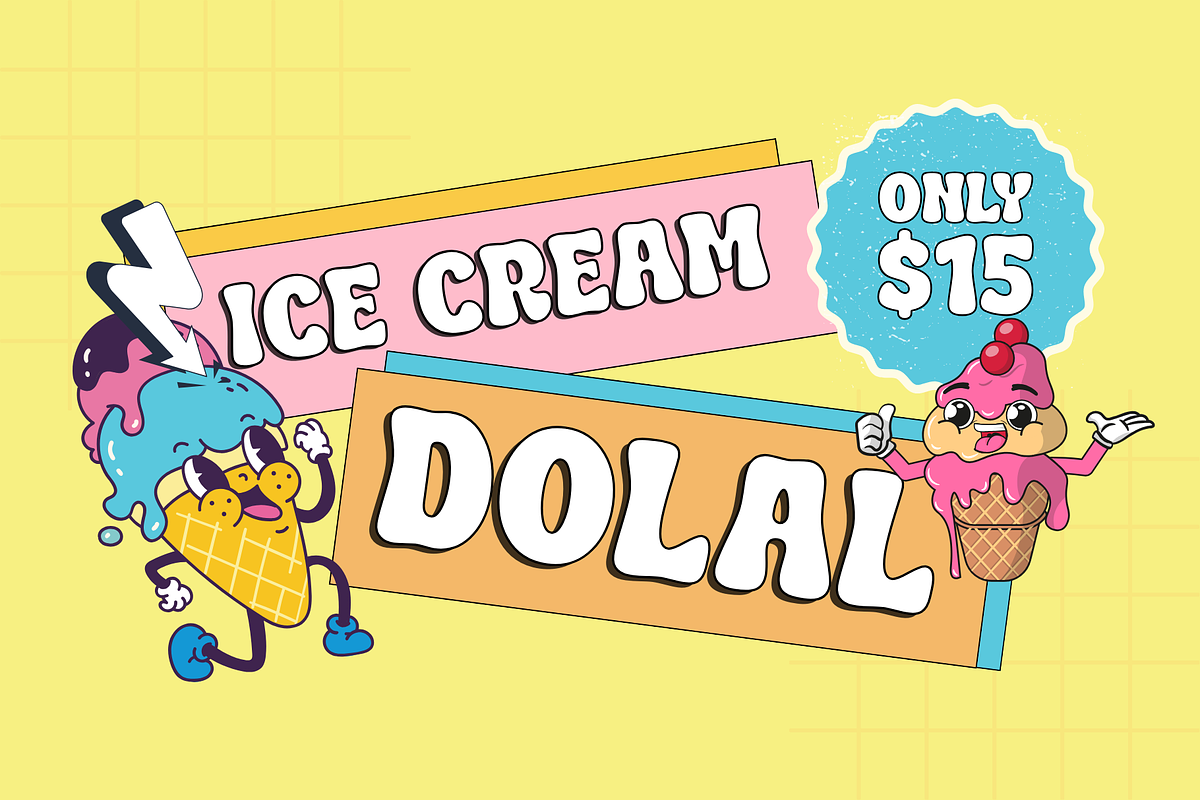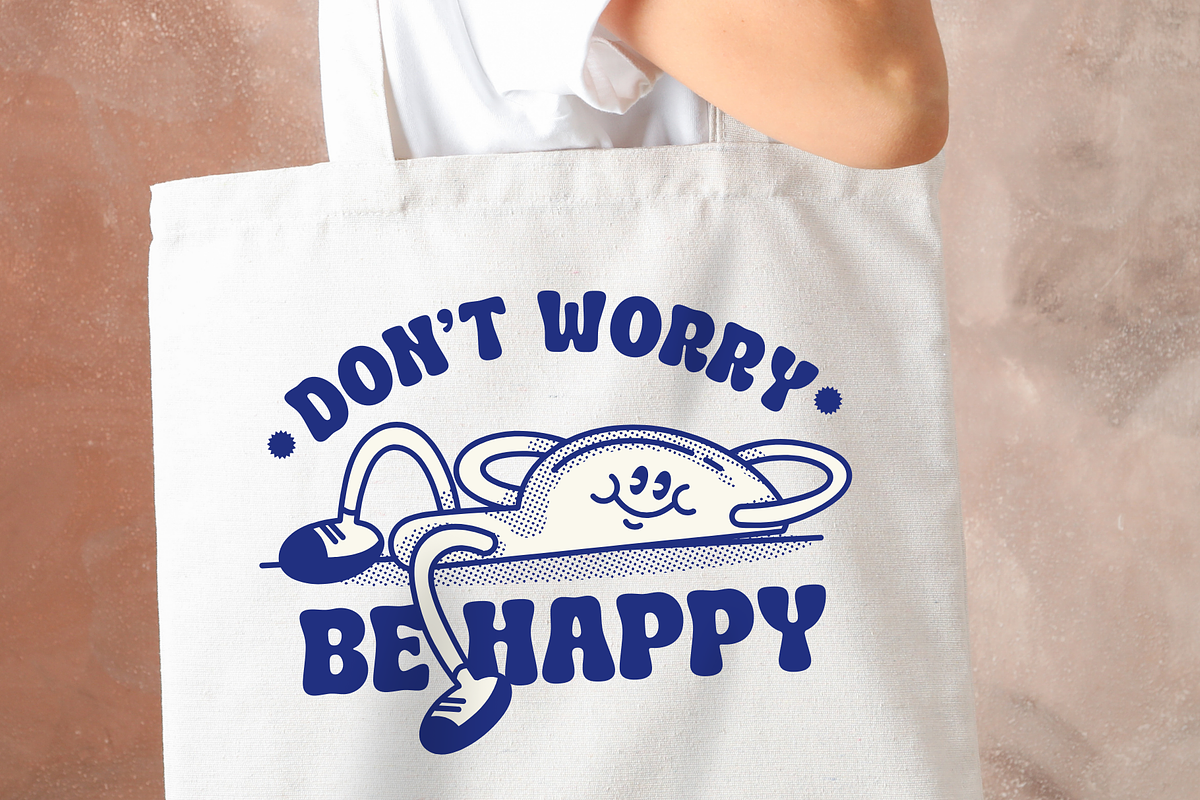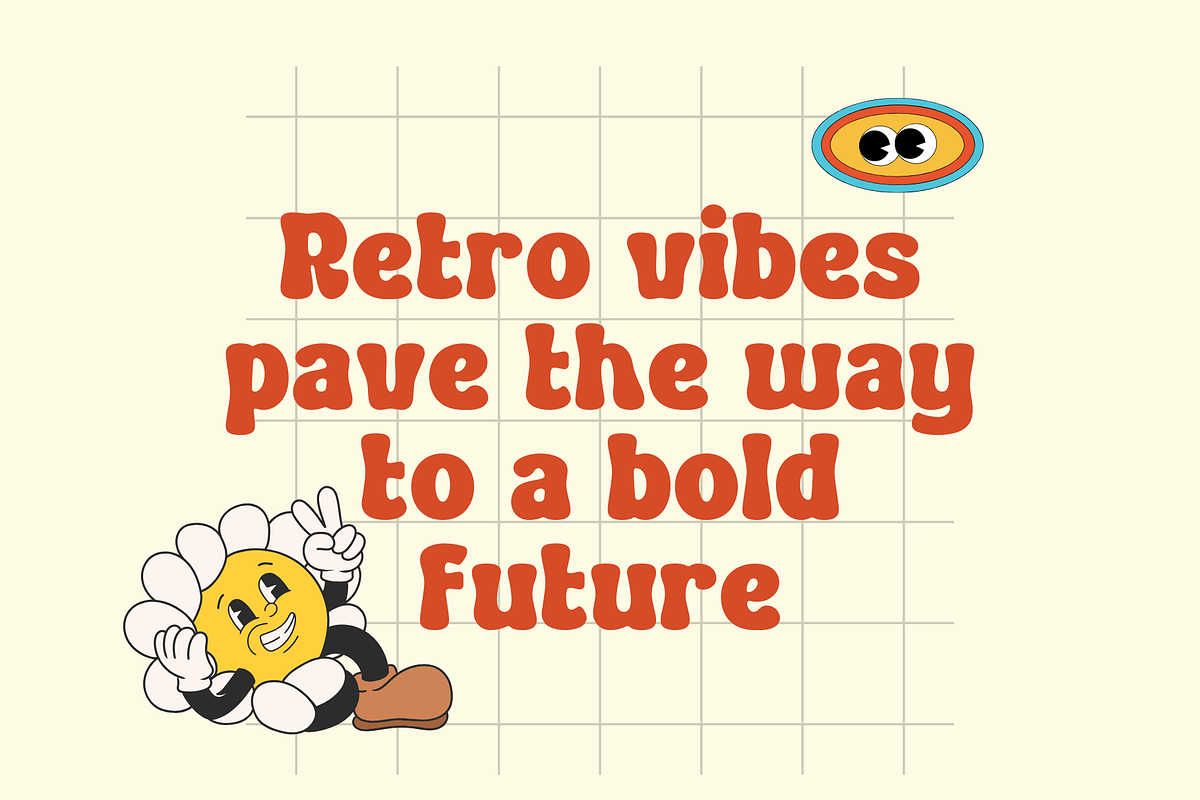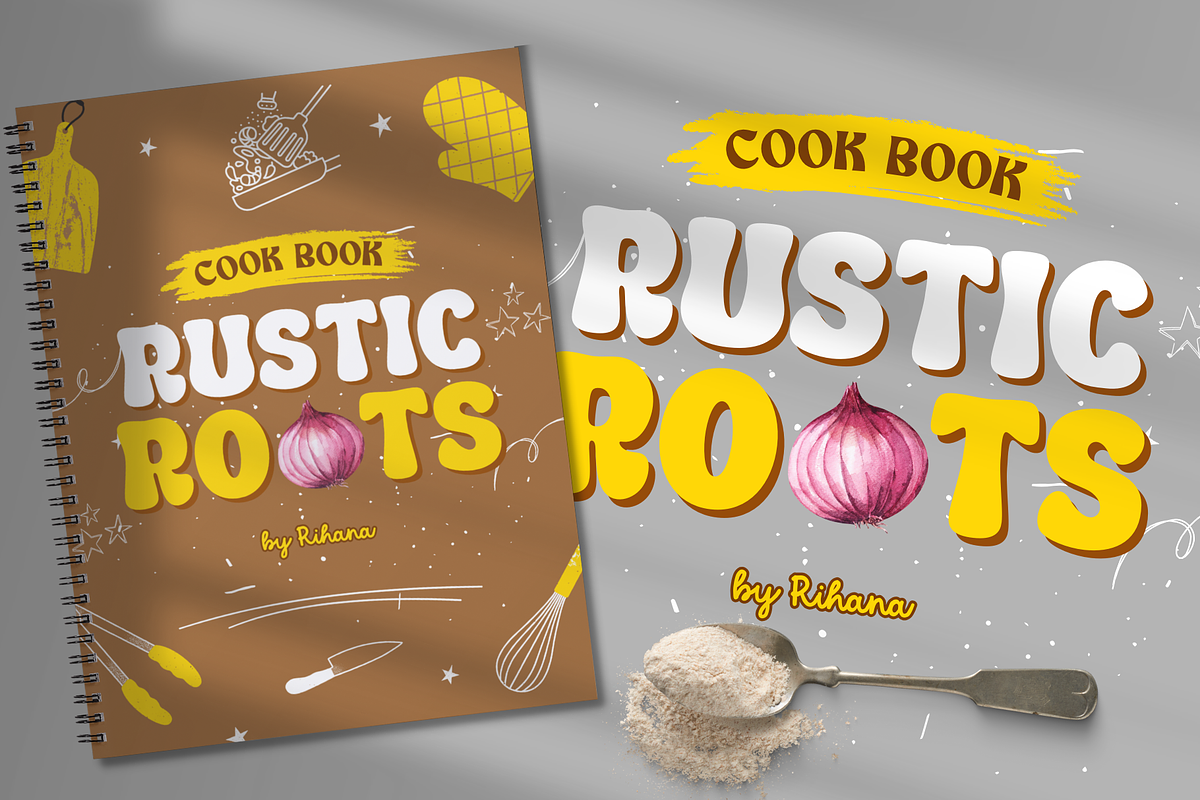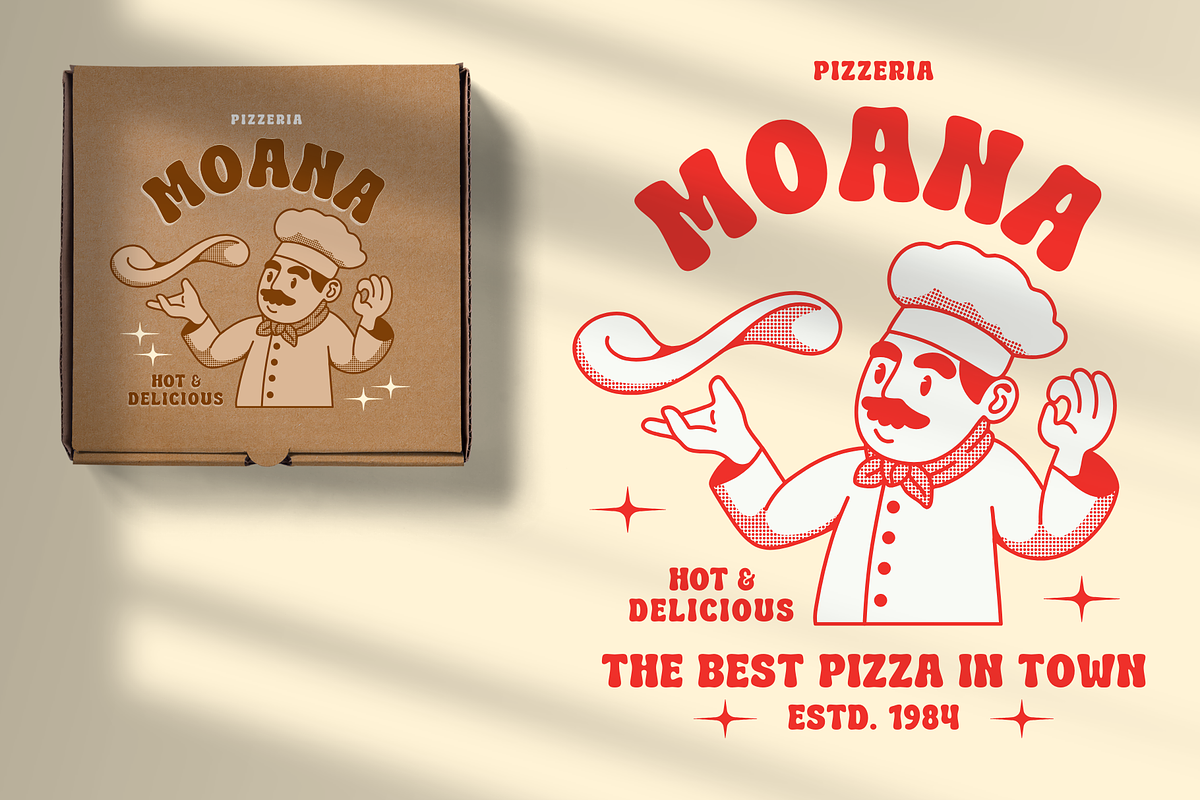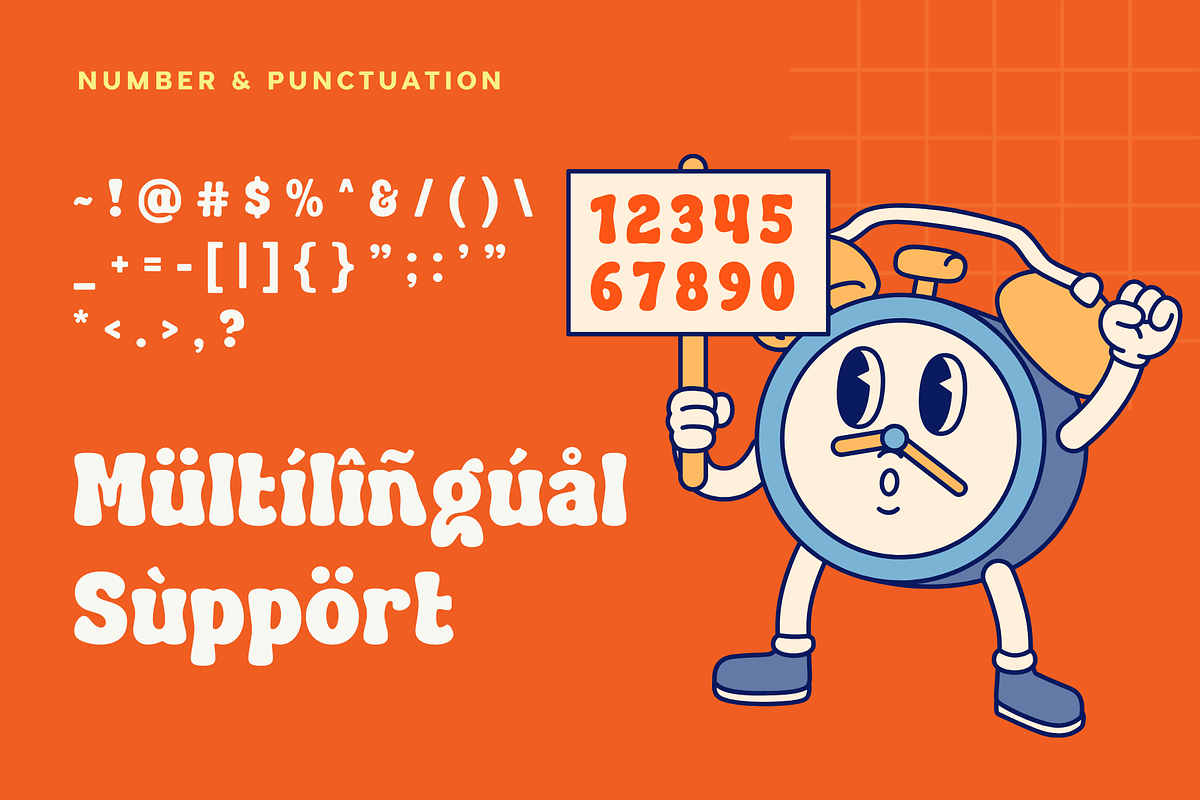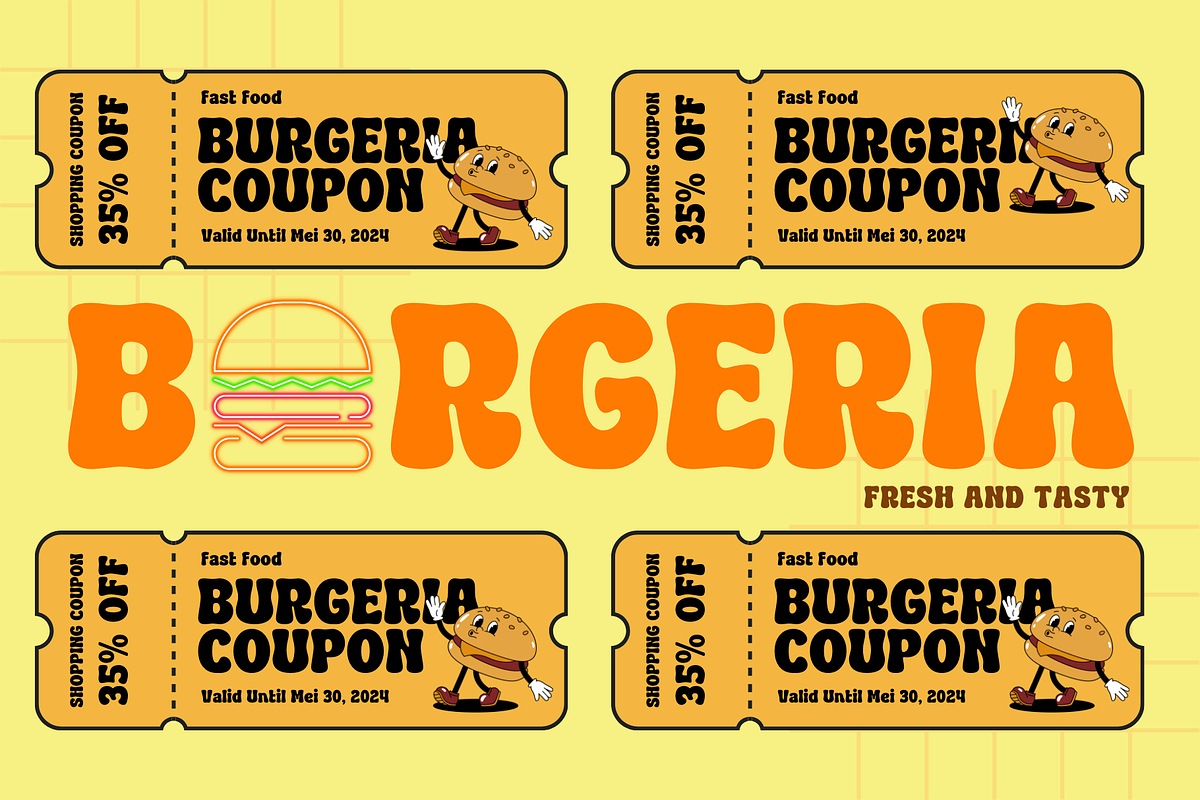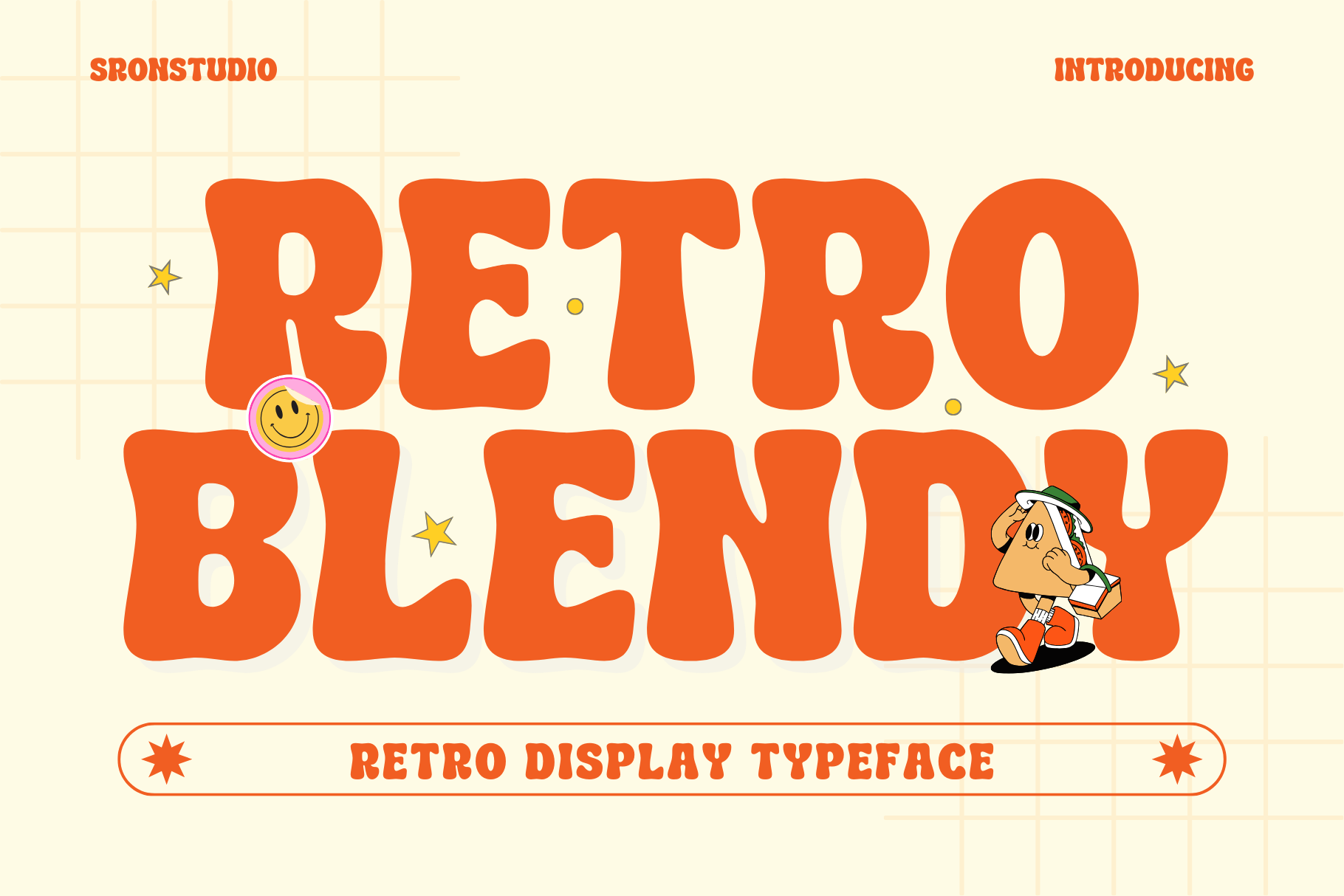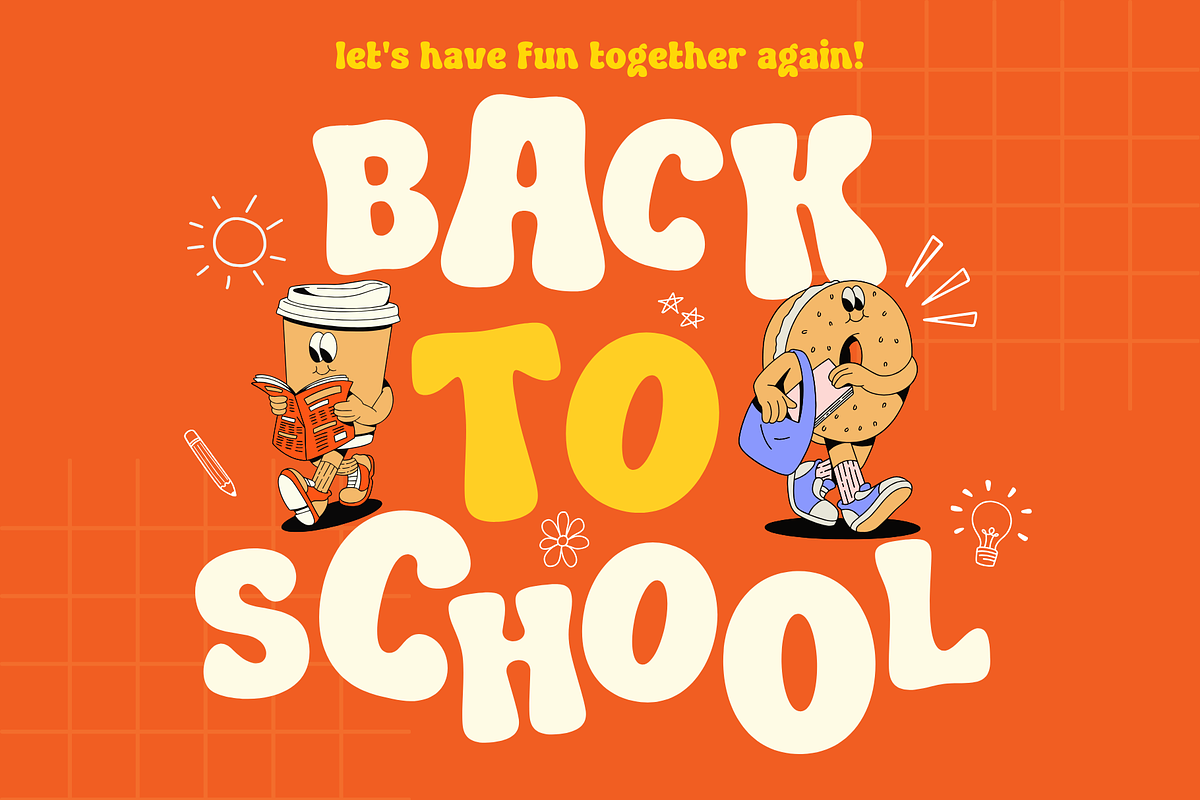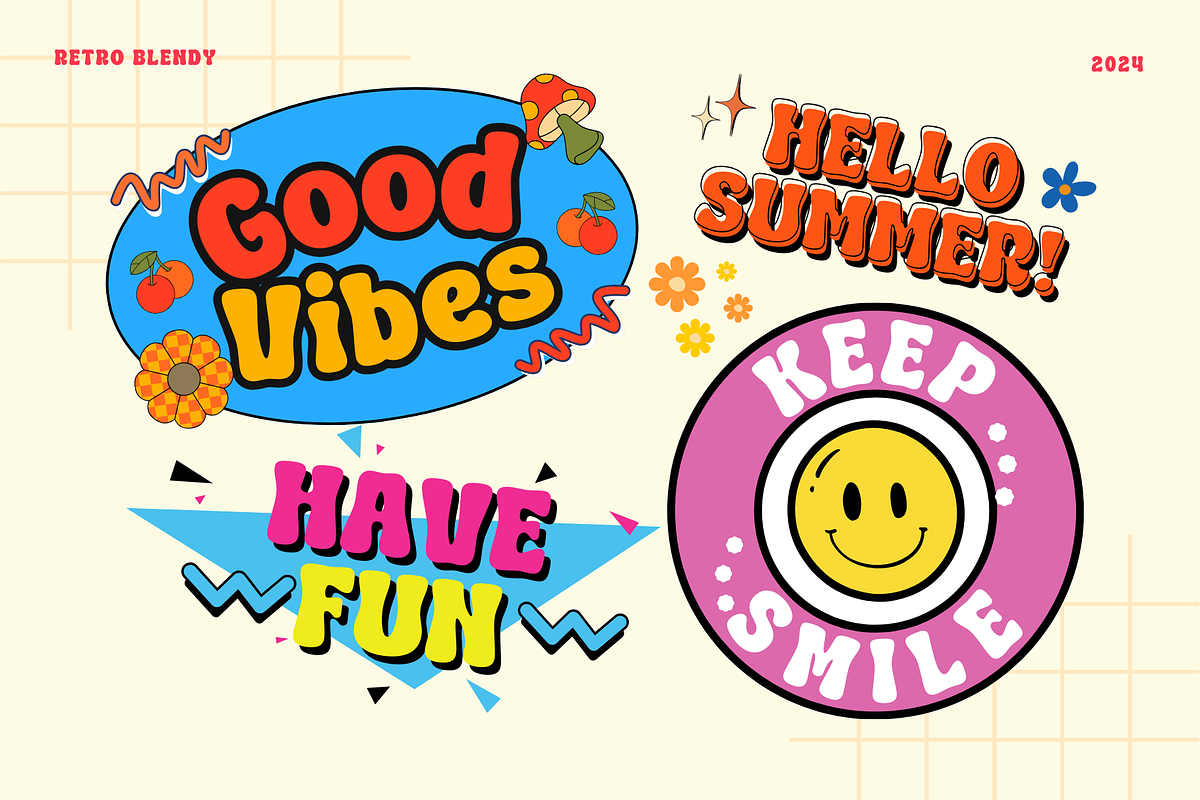
Retro Blendy - Retro Display Font
Introducing "Retro Blendy," a captivating retro display font that transports you back in time with its nostalgic charm and vintage aesthetics. This font features unique, bold letterforms with a blend of playful curves and classic styling, perfect for evoking the spirit of the past. Ideal for posters, logos, branding, and packaging, "Retro Blendy" adds a touch of retro flair to any design project. Bring the timeless appeal of the retro era to your creations with the eye-catching "Retro Blendy."